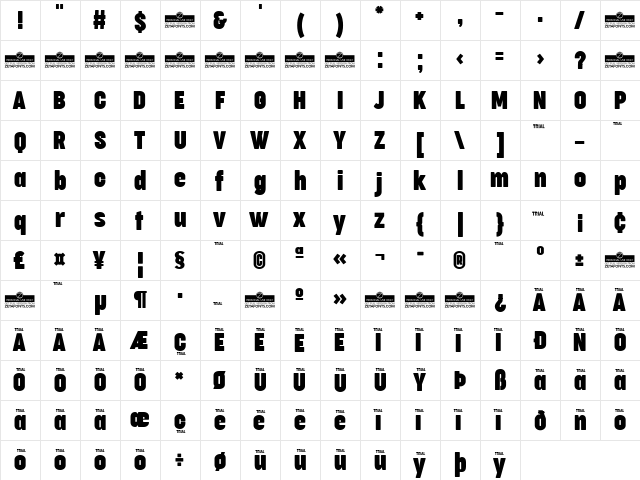
Cocogoose Compressed Trial Bold
| Foundry | Zetafonts |
| Designer | Cosimo Lorenzo Pancini |
Design Context for Cocogoose Compressed Trial Typeface
Cocogoose Compressed Trial offers clean, dependable letterforms without strong stylistic allegiance, making it a practical choice for designers who need flexibility. The heavy weight commands attention and anchors typographic hierarchies.